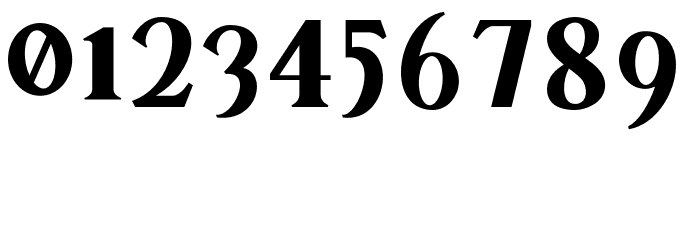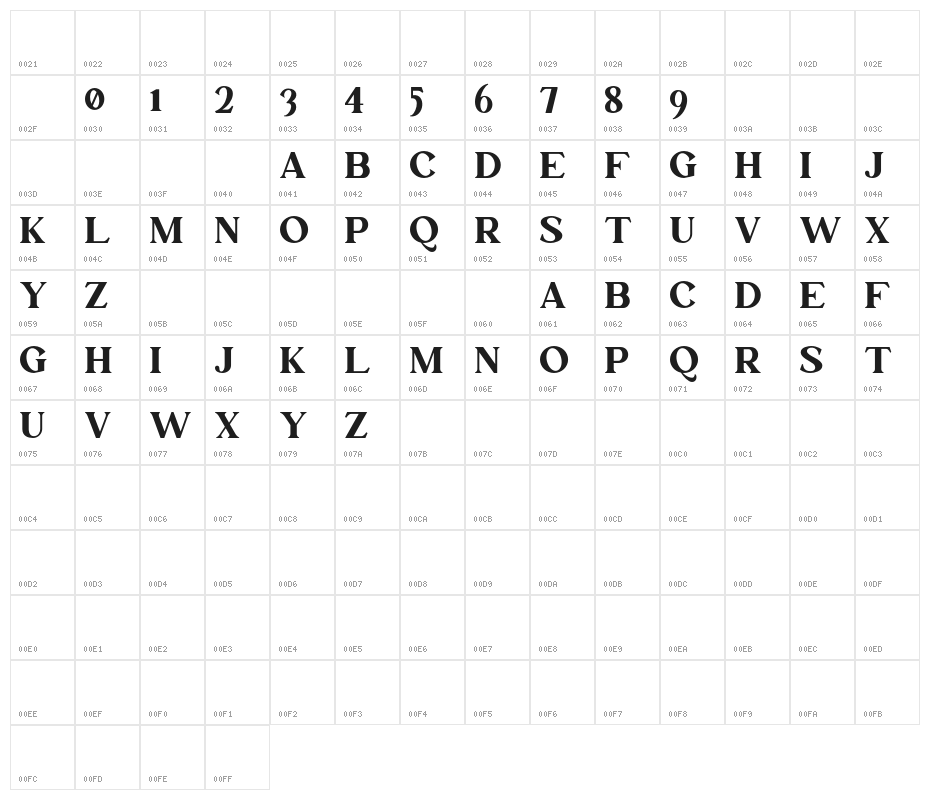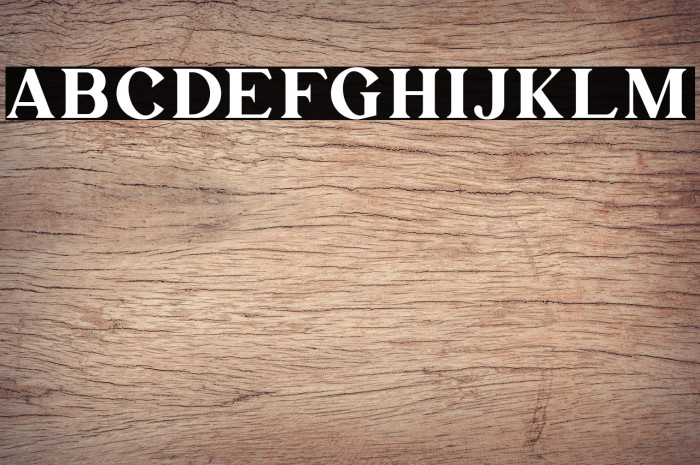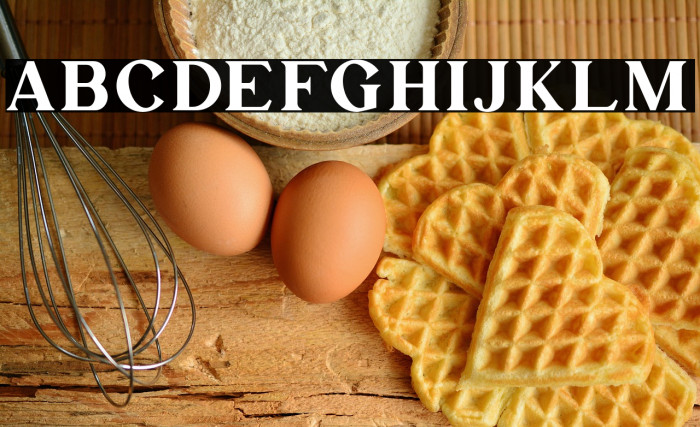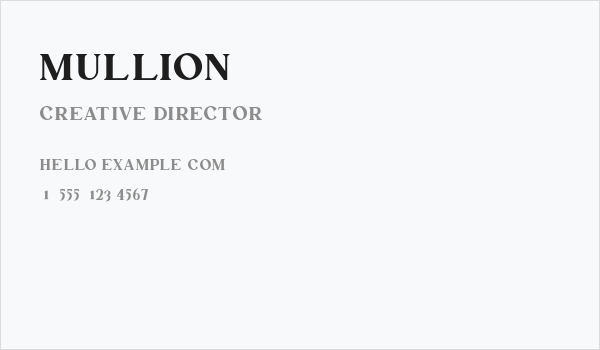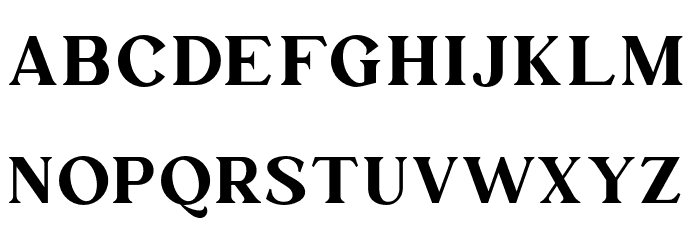
Mullion Font
Mullion Description
This font features a classic serif style with strong, bold strokes and elegant curves. The uppercase letters are well-defined, with a traditional serif flair that adds a touch of sophistication. The lowercase letters maintain a consistent style, offering readability and a timeless appeal. The numerals are distinct and bold, ensuring clarity and impact. Special characters are designed with the same attention to detail, making them suitable for various applications. Overall, this font exudes a sense of authority and elegance, perfect for formal and professional settings.
| Proposed Projects | Ideal for book covers, formal invitations, branding materials, and editorial design. |